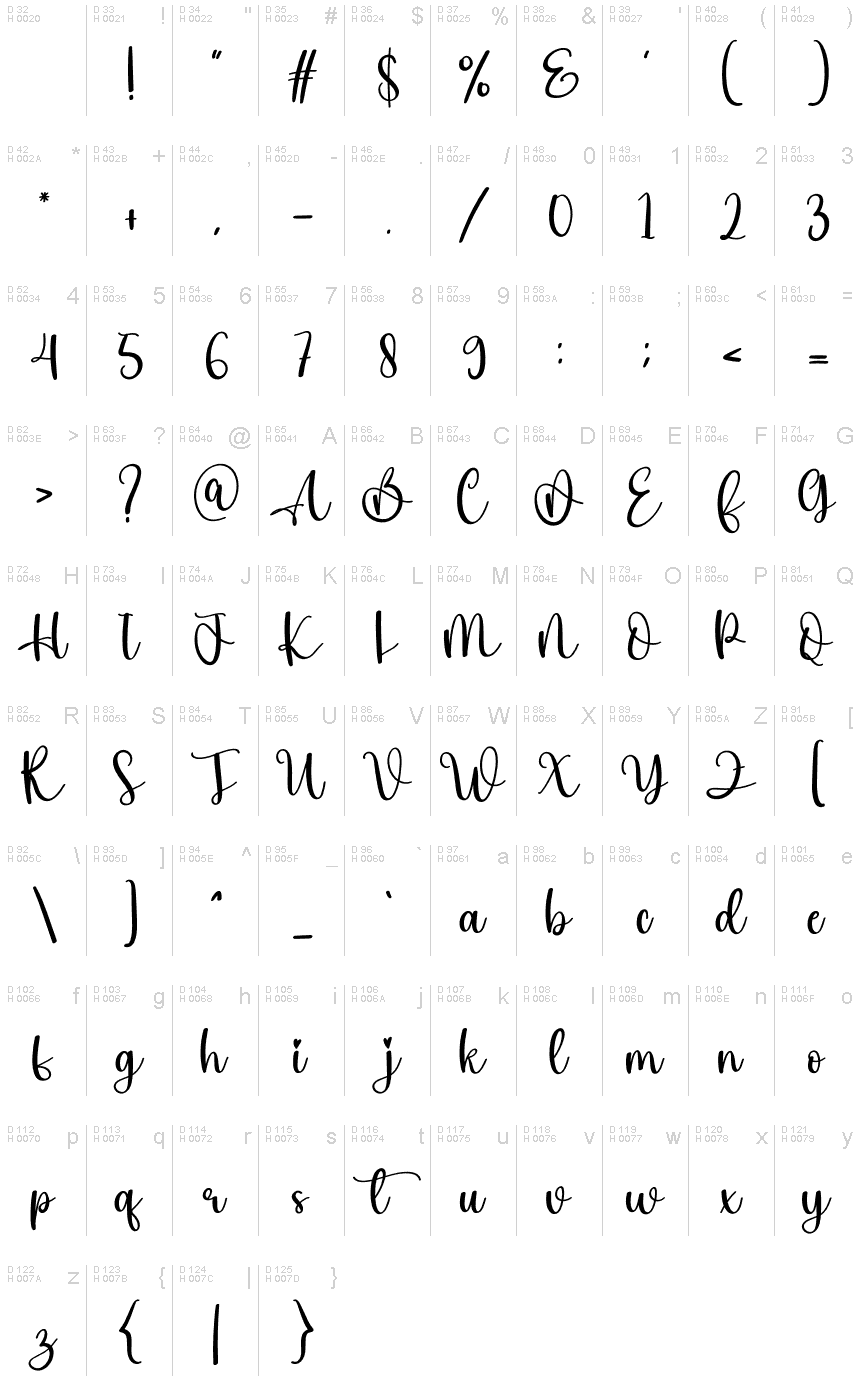
Buttercake
Buttercake, designed by Scratchones, is a captivating calligraphy font that exudes elegance and grace. With its semi-light weight, it adds a subtle touch of sophistication to any project.
Perfect for wedding invitations, event posters, and greeting cards, Buttercake evokes a sense of romance and charm. Its flowing strokes and delicate curves effortlessly bring text to life, creating a visually stunning experience for readers. Whether you're designing a beautiful logo or crafting heartfelt stationery, Buttercake is the ideal choice for projects that require a touch of whimsy and refinement.